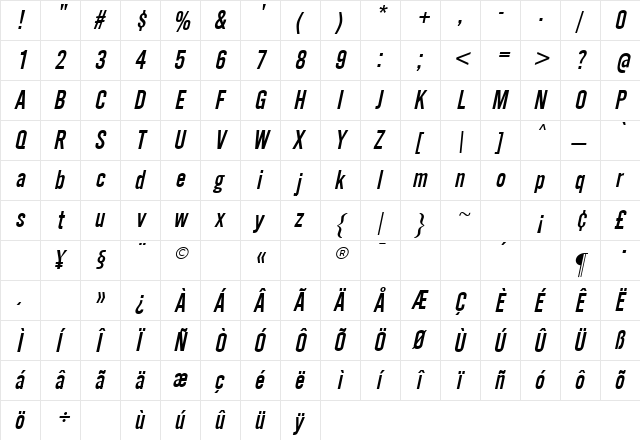
SimpleType Italic
Design Context for SimpleType Typeface
SimpleType is a composed and adaptable typeface that performs quietly and consistently across a wide range of design contexts. The slanted form adds forward momentum and visual energy.